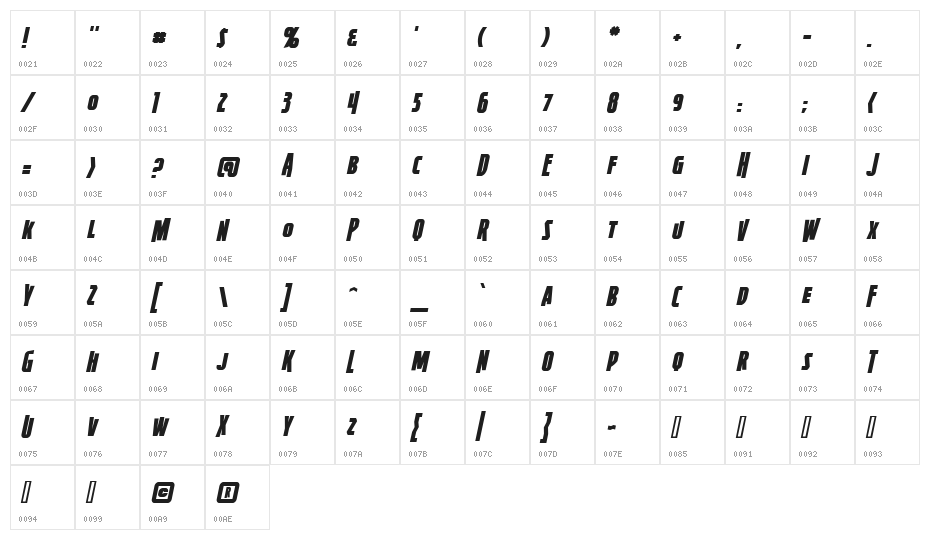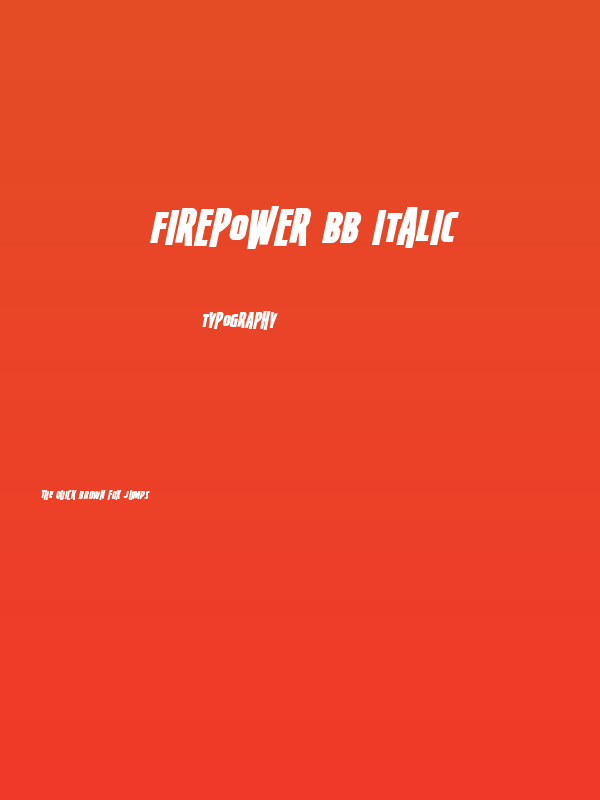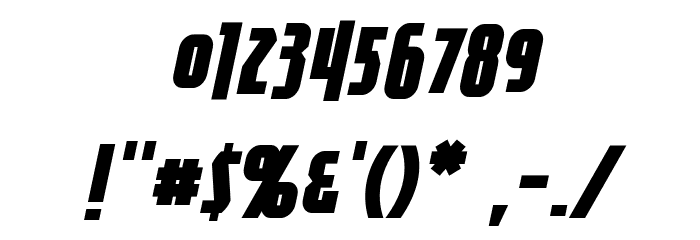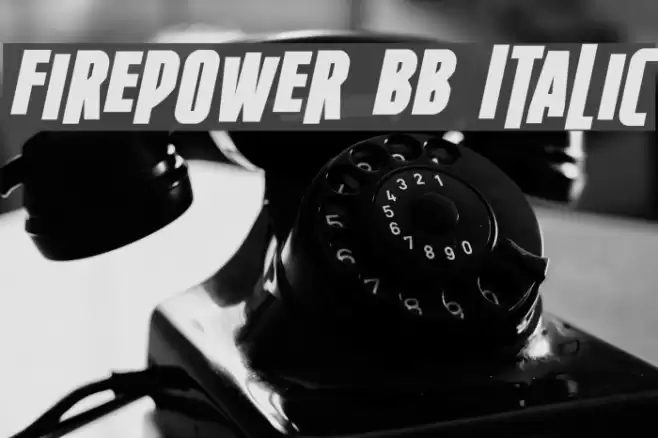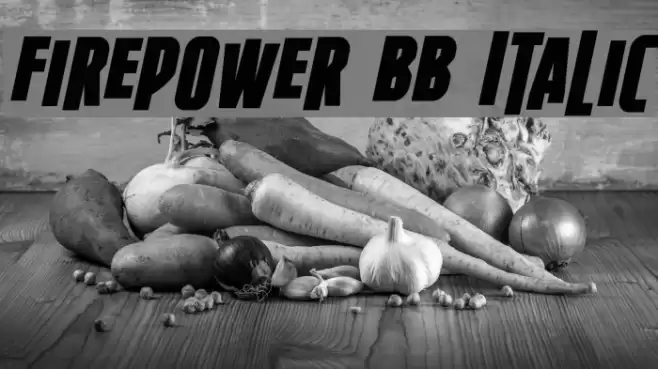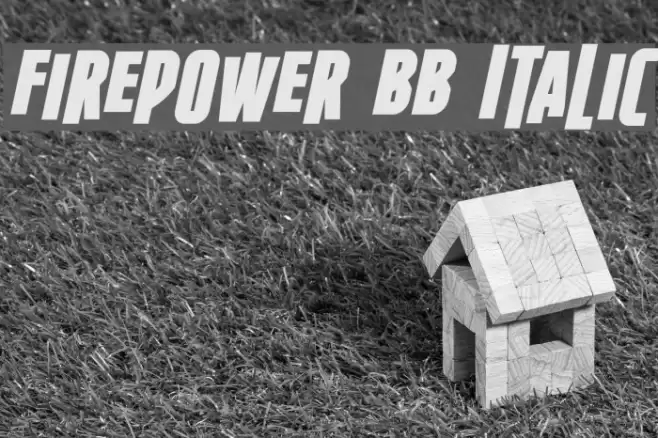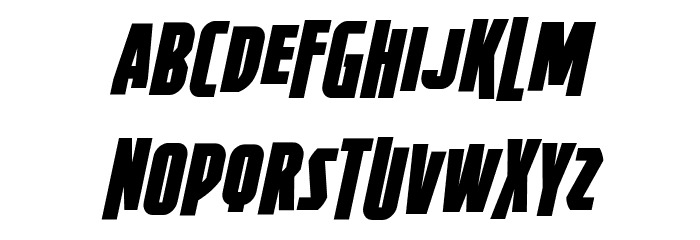
Firepower BB Italic Font
This font exhibits a bold and dynamic style with a strong italic slant, giving it a sense of motion and energy. The characters are thick and robust, with sharp angles and a slightly condensed form that enhances its impactful appearance. The uppercase and lowercase letters maintain a consistent style, with the lowercase letters slightly smaller but equally bold. The numerals and special characters follow the same design principles, ensuring uniformity across all glyphs. This font's aggressive and modern aesthetic makes it suitable for attention-grabbing designs.
| Proposed Projects | Ideal for sports branding, action-themed posters, video game titles, and dynamic logo designs. |